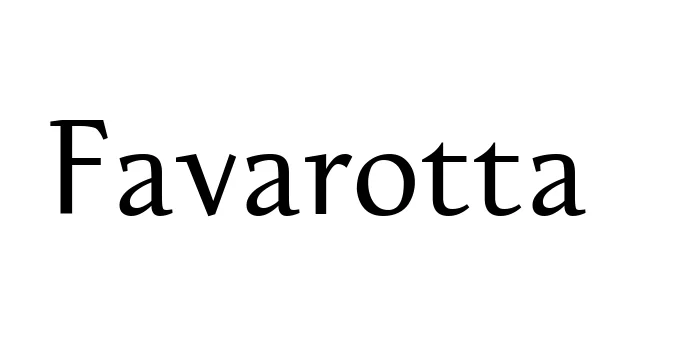
Favarotta ☞
Designed by Situjuh Nazara (7NTypes)
Favarotta is an elegant and sophisticated serif typeface that exudes a sense of modern luxury and timeless class. Designed by Situjuh Nazara, this font features high-contrast strokes and refined terminals, making it an exceptional choice for designers looking to elevate their visual communication. Its balanced proportions ensure legibility while maintaining a distinct personality that captures the viewer's attention instantly.
The font is particularly well-suited for high-end branding and editorial layouts where a touch of grace is required. Whether used for large-scale headlines or delicate subtext, Favarotta provides a professional polish to any project. Its unique stylistic flourishes allow it to stand out in the crowded field of serif fonts, offering a perfect blend of traditional craftsmanship and contemporary design aesthetics.
Favarotta ☞ Best Uses
Ideal for luxury fashion logos and high-end corporate identities.
Perfect for magazine mastheads, article titles, and layout design.
Enhances the premium feel of cosmetic, jewelry, or liquor packaging.
Great for creating sophisticated quote graphics and promotional stories.